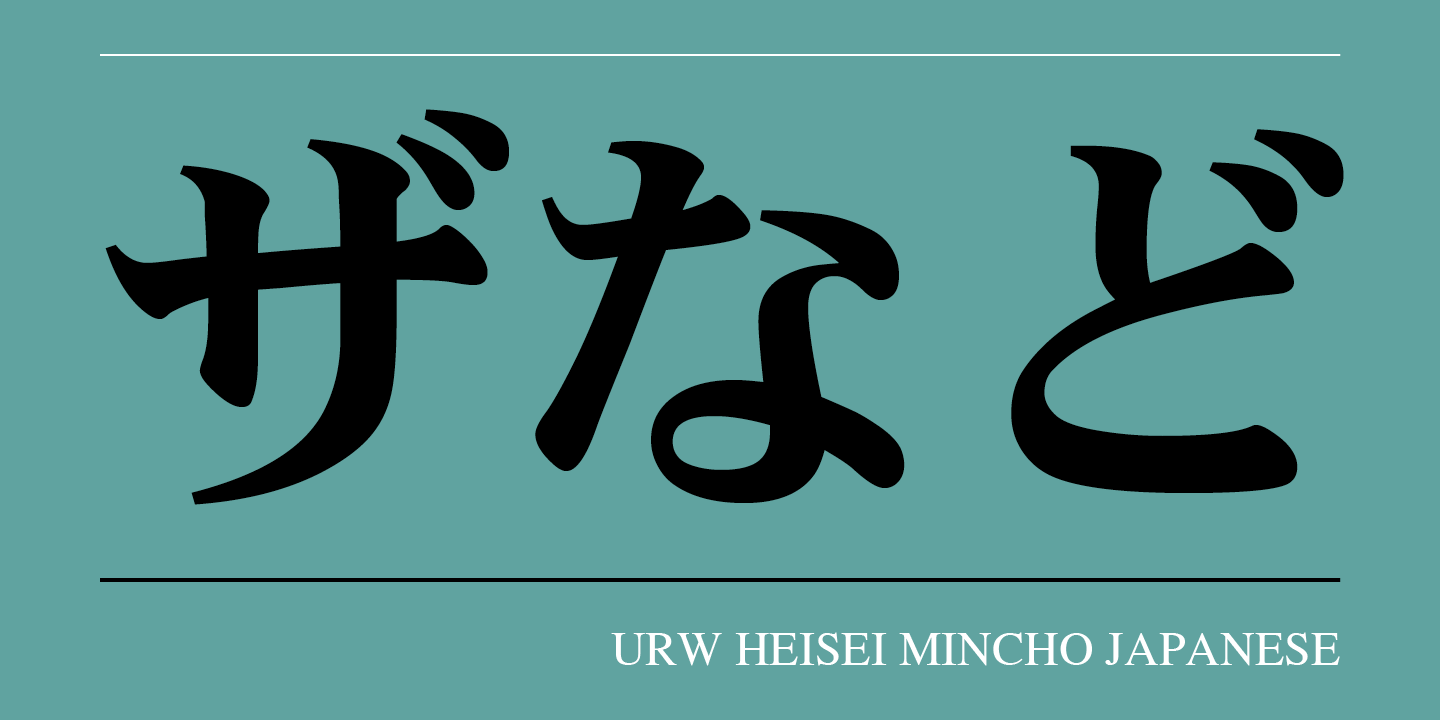
URW Heisei Mincho Font is ideal for Japanese publications, academic journals, traditional documents, cultural branding projects, zen-inspired designs, meditation app interfaces, authentic Japanese restaurant menus, martial arts promotional materials, tea ceremony invitations, and Asian-themed marketing campaigns. This sophisticated typeface excels in projects requiring authentic Japanese typography with international compatibility.
What makes URW Heisei Mincho Font exciting is its masterful blend of traditional Japanese calligraphy principles with contemporary digital precision. The font preserves the elegant brushstroke characteristics of classical Mincho style while ensuring perfect readability across modern digital platforms. This harmonious fusion of heritage and innovation makes it invaluable for brands seeking to convey authenticity, wisdom, and cultural sophistication.
URW Heisei Mincho Font family includes Regular, Light, Medium, Bold, Extra Bold, Condensed, Extended, and Traditional variants. Each weight maintains the font's distinctive Japanese aesthetic while offering comprehensive flexibility for both horizontal and vertical text layouts, essential for authentic Japanese typography applications.
The URW Heisei Mincho Font Free Download provides designers with access to professional-grade Japanese typography that meets international publishing standards. This font's meticulous attention to stroke weight, character spacing, and traditional proportions makes it particularly valuable for educational institutions, cultural organizations, and businesses operating in Asian markets.
Typography specialists recognize the font's superior technical implementation, including extensive Unicode support, proper OpenType features, and optimized rendering for both Latin and Japanese character sets. The careful balance between tradition and technology ensures consistent performance across diverse applications.
When implementing URW Heisei Mincho Font in design projects, the results demonstrate exceptional cultural authenticity and professional quality. The font's refined appearance makes it particularly effective for luxury brands, cultural institutions, and publications where credibility and elegance are paramount.
For digital environments, URW Heisei Mincho Font renders beautifully on both desktop and mobile platforms, maintaining its intricate details and traditional character across different screen technologies and resolutions.
Creative professionals consistently select URW Heisei Mincho Font for projects requiring authentic Japanese typography that respects cultural traditions while meeting contemporary design and technical standards.